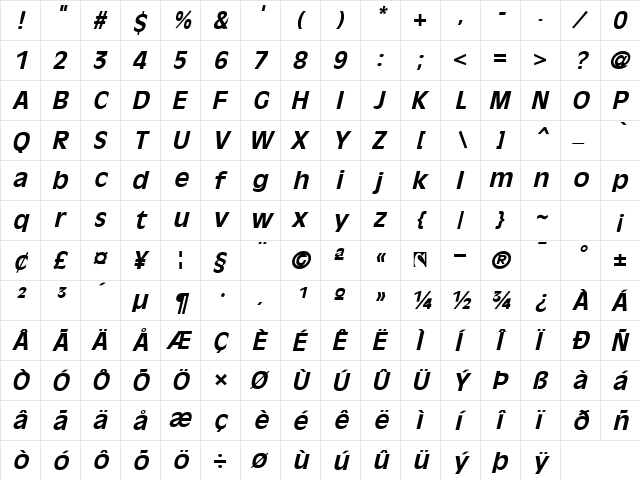
Antique Ovation fed kursiv
Design Context for Antique Ovation Typeface
Antique Ovation wears its vintage influences proudly, with letterforms that recall mid-century signage, classic packaging, and nostalgia-driven design. Its italic angle brings a sense of urgency and motion to the letterforms.
Perfect for vintage-inspired branding, retro packaging, nostalgia campaigns, and period-accurate editorial design.
Font Pairing: Combine Antique Ovation with a simple slab or neutral sans — period-accurate companions reinforce the vintage feel without competing for attention.
Pro Tip: Use Antique Ovation for headlines and pull quotes rather than body copy — its personality is best appreciated in short, focused bursts.